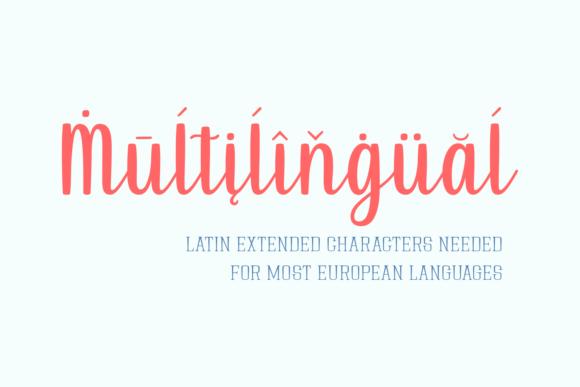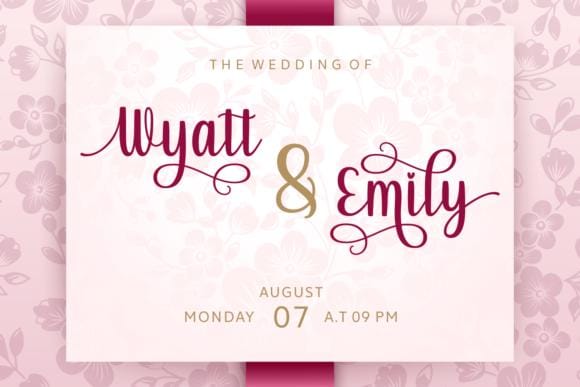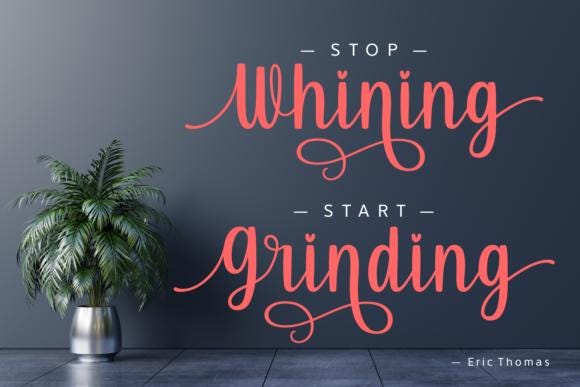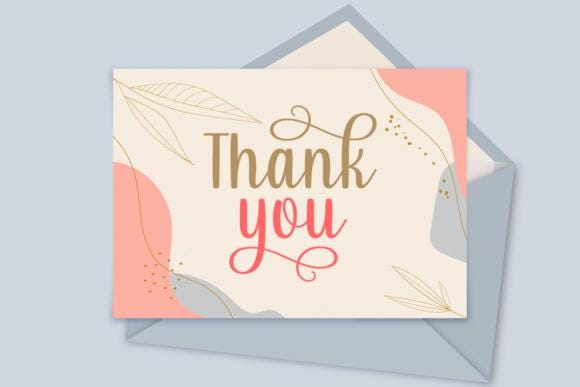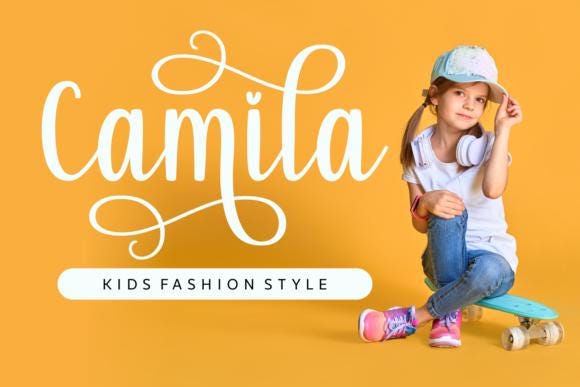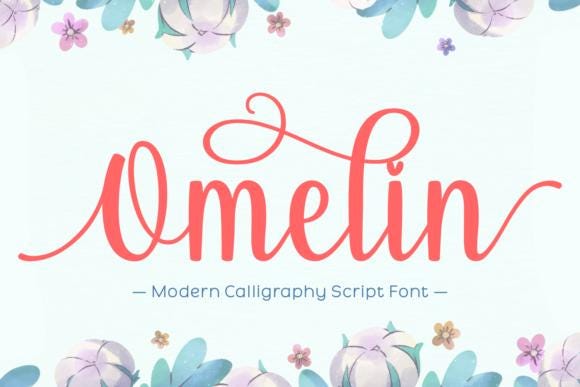
Omelin Font
Omelin is a lovely and timeless handwritten font. It is the best choice for creating eye-catching logos, branding, and quotes. Every letter has a unique and beautiful touch, which will make your design come alive!